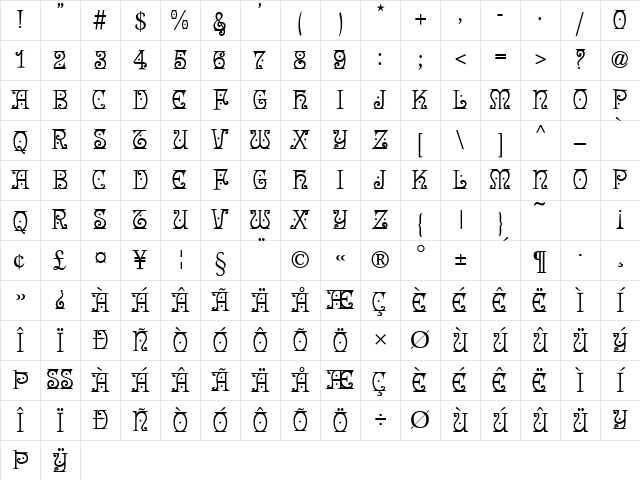
Angel Regular Free Font
Angel Regular
Design Context for Angel
Angel is a composed and adaptable typeface that performs quietly and consistently across a wide range of design contexts.